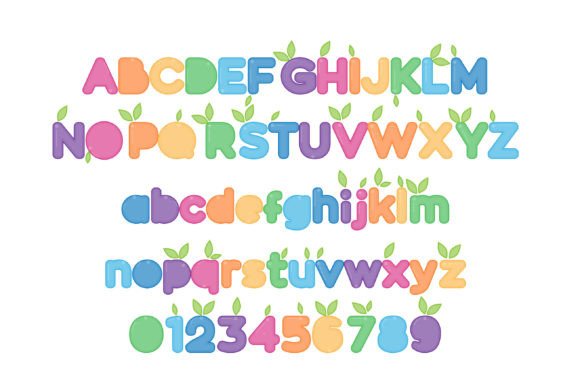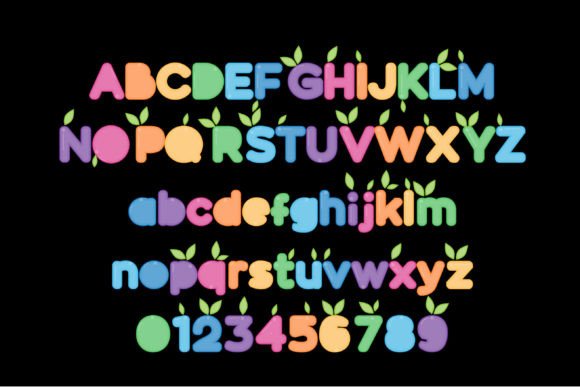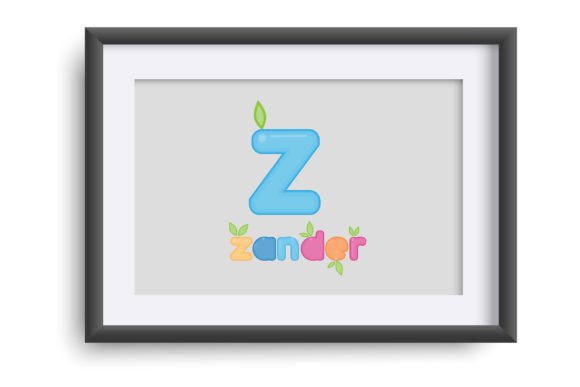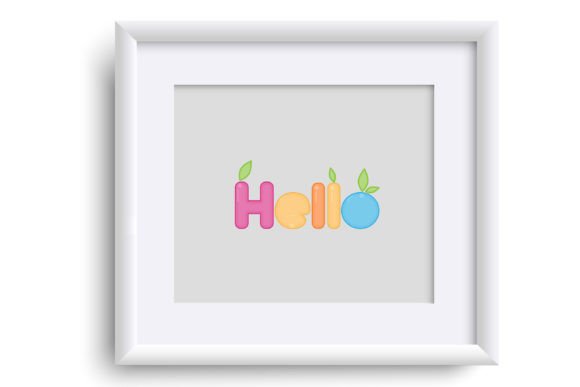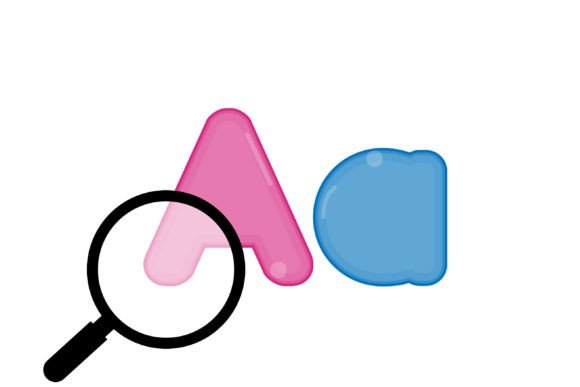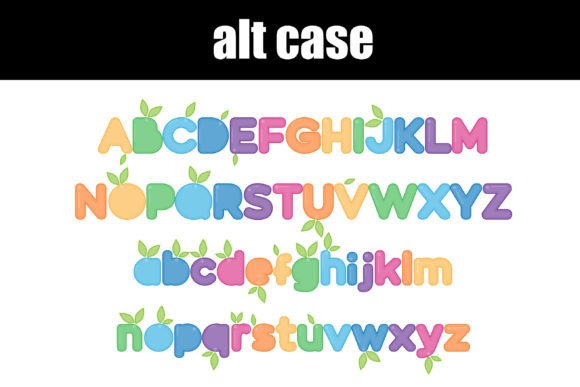
Introduction to Rainbowberry Font
Have you ever found yourself stuck on a creative project, searching for the perfect design element to elevate your work? You know, that one thing that will make your design stand out from the crowd and leave a lasting impression. For me, that thing is often a unique and eye-catching font. Recently, I stumbled upon the Rainbowberry Font, and I was blown away by its vibrant colors and berry-like appearance. This full-color font is a game-changer for designers looking to add a touch of personality to their designs.
As a design resource, the Rainbowberry Font offers a wide range of creative possibilities, from simple text logos to complex illustrations. With its high-quality design and transparent background, you can easily integrate it into your projects, making it a valuable asset for any designer. Whether you’re working on a free download or a paid project, this font is sure to bring a pop of color and creativity to your work.
Key Features of Rainbowberry Font
- Unique, colorful design perfect for creative projects and design resources
- Features a transparent background for seamless integration into designs
- High-quality font with precise resolution for clear and crisp text
- Designed with a playful, whimsical feel, ideal for artistic and creative projects
- Supports a wide range of languages and characters for global design applications
Honest Review: Rainbowberry Font
I recently stumbled upon the Rainbowberry Font, and I must say, it’s been a delight to work with. This design resource is perfect for any creative project that needs a pop of color and whimsy.
Here are some things that work well with the Rainbowberry Font:
- High-quality design: The font is crisp and clean, making it ideal for print and digital projects.
- Transparent background: This allows for seamless integration into any design, whether it’s a logo, social media graphic, or web page.
- Unique style: The Rainbowberry Font’s playful, hand-drawn look adds a touch of personality to any design.
As with any design resource, there are some limitations:
- Limited font sizes: The font may not be suitable for large-scale typography or headlines.
- No bold or italic variations: The font is only available in regular and bold weights.
Overall, I’m impressed with the Rainbowberry Font. It’s a great addition to any designer’s toolkit, and I’d definitely recommend it for any creative project that needs a fun, colorful touch. ⭐️⭐️⭐️⭐️⭐️
Tips for Getting the Most Out of Rainbowberry Font
To get the most out of the Rainbowberry Font, experiment with different font sizes, colors, and combinations to create unique and eye-catching designs. You can also use the font in conjunction with other design elements, such as images and shapes, to create a cohesive and engaging visual identity.
The Rainbowberry Font is ideal for creative projects, such as graphic design, digital art, and even social media graphics. It’s also a great resource for designers who want to add a touch of whimsy and personality to their designs.